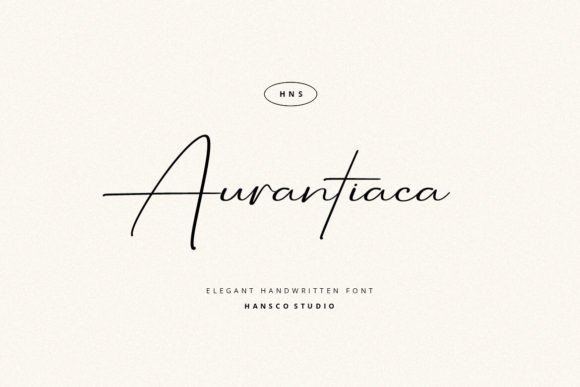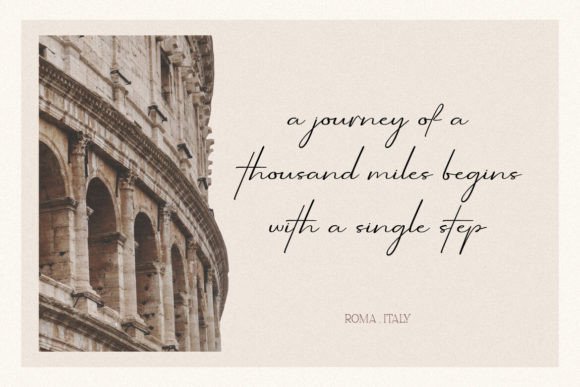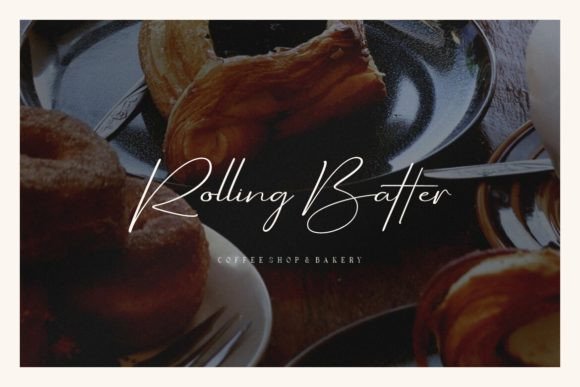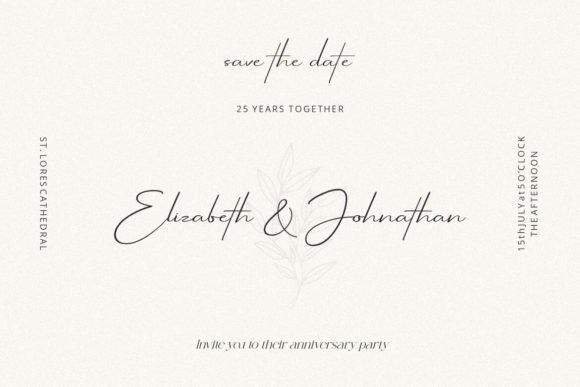
Aurantiaca Signature Font
About the Aurantiaca Signature Font
Let us introduce you to Aurantiaca Signature Font, where timeless design meets modern craftsmanship. Aurantiaca Signature is a modern, casually and feminine handwriting font. Some projects that are suitable for this font include quotes, menus, taglines, flyers, posters, invitations, greeting cards, posters, business cards, clothing, letters, stationery and many others. Comes with a full uppercase, lowercase, numbers, punctuation, ligature character and with extensive language support, it’s going to be a very usable addition to your project.
Aurantiaca Signature’s casual elegance makes it ideal for branding projects needing a touch of femininity, particularly logos, short taglines, and social media graphics. It also works well in invitations and stationery where a handwritten feel adds personality. However, its delicate nature makes it unsuitable for body text or UI elements requiring high readability. Avoid using it in lengthy paragraphs or situations demanding clear, concise information.
For optimal pairings, consider a clean sans-serif like Montserrat for a modern contrast, or a classic serif such as Garamond for a more traditional feel. A geometric sans-serif like Futura would offer a contemporary edge. These pairings balance Aurantiaca’s script-like quality, ensuring visual harmony and preventing the design from feeling cluttered.
The font projects a friendly, approachable, and slightly playful personality, perfect for brands focusing on beauty, fashion, lifestyle, or artisan products. Its casual nature makes it less suitable for projects requiring a highly professional or formal aesthetic.
Aurantiaca Signature Font Usage Examples
Aurantiaca Signature Font Example